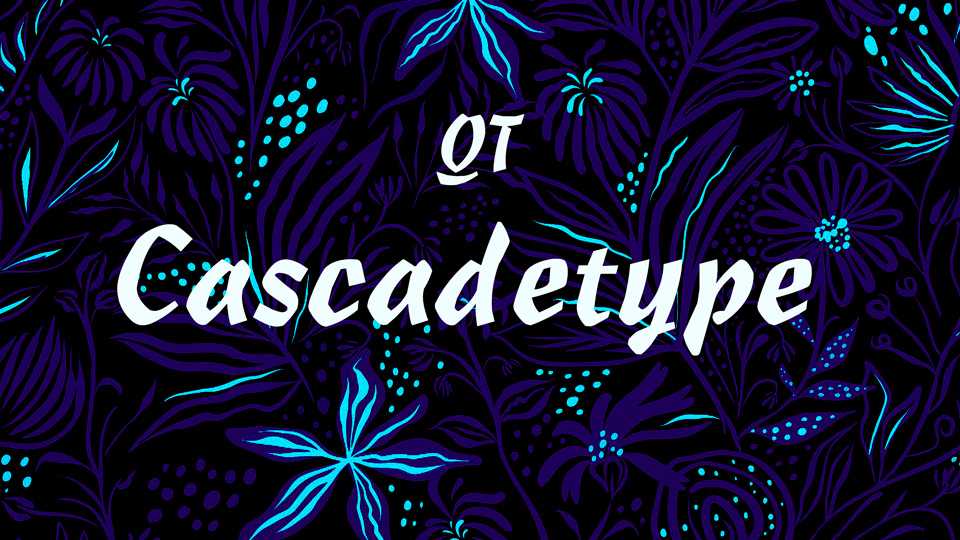
Download QT Cascadetype font, a dark, disconnected script with angular forms. The bold letters of Cascadetype have a heavy-marker look, which makes it ideal for informal posters and signage.